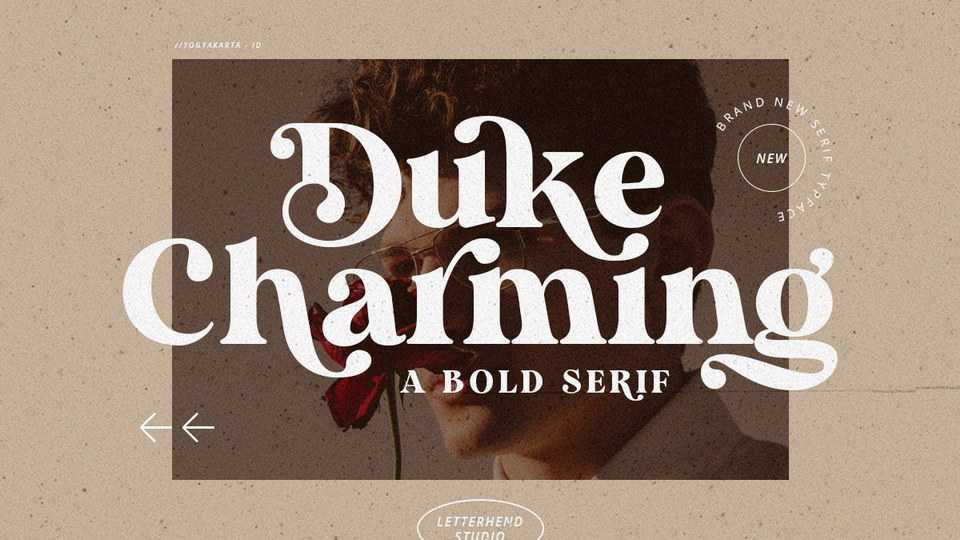
Download Duke Charming font, a modern semi bold serif typeface carefully made to make sure its quality. Duke Charming perfectly made to be applied in logo, branding and the formal design.